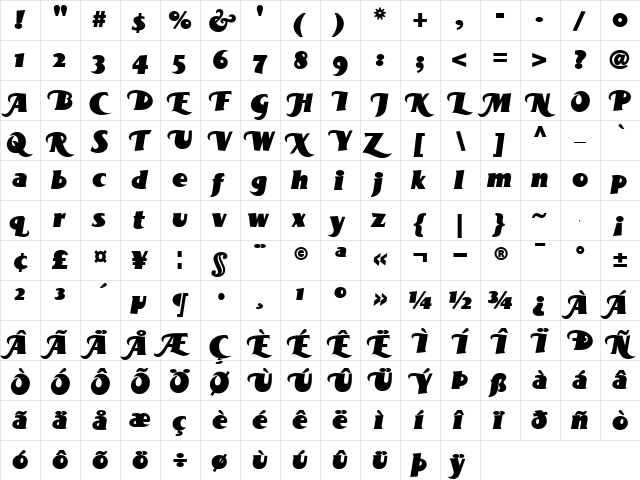
BottleKaps Swash CondIt Regular
Design Context for BottleKaps Swash CondIt Typeface
BottleKaps Swash CondIt brings a calligraphic fluidity to the page — its connecting strokes and expressive curves give it an unmistakably human quality.